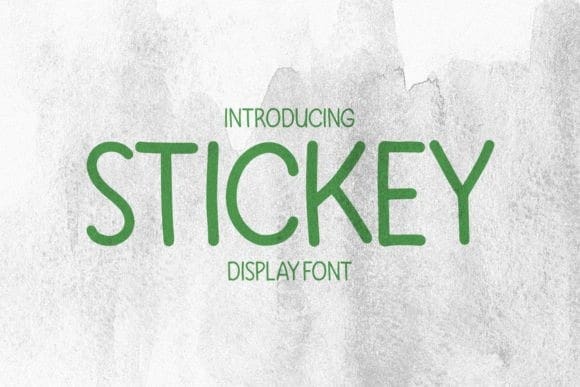
Stickey Playful Font
Stickey Playful Font a playful and cute display font with versatile letters that look great in all caps or are used regularly in sentence cases. Perfect for birthday invitations, stationery, kids’ t-shirt designs, label, logo, branding, packaging, calendars, and more project about kids!